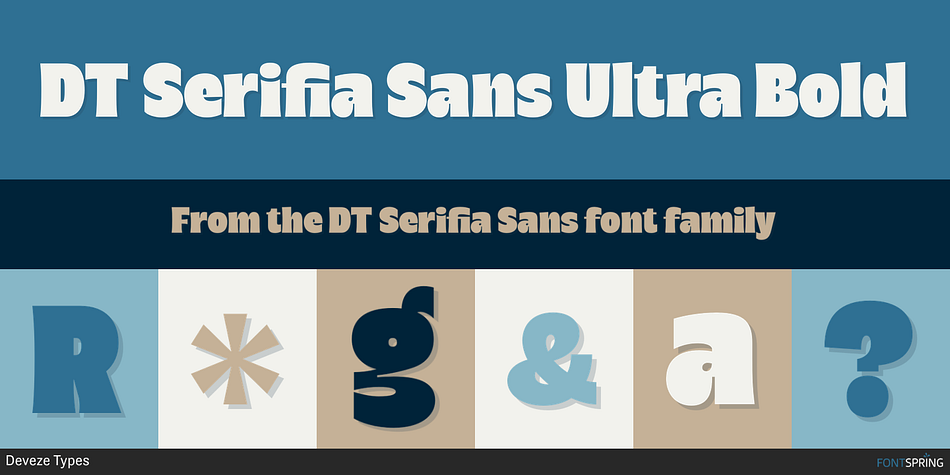
DT Serifia Sans Ultra Bold
Designed by Maya Deveze, DT Serifia Sans is a sans serif font family. This typeface has eight styles and was published by Deveze Types.
DT Serifia Sans is a modern grotesque with a playful character. The font family contains seven widths and one Variable Font. From extra thin to ultra bold, you will surely appreciate this font. Typography will take on its own mood with it. The vertical terminals give it a sense of sophistication even with all its playfulness. A wide range of thickness options allows using this typeface in a variety of projects, and a plethora of OpenType features will make your project look outstanding. A wonderful addition to your collection, it is perfect for branding, magazines, web, broadcasting, packaging, apparel prints, prints etc.